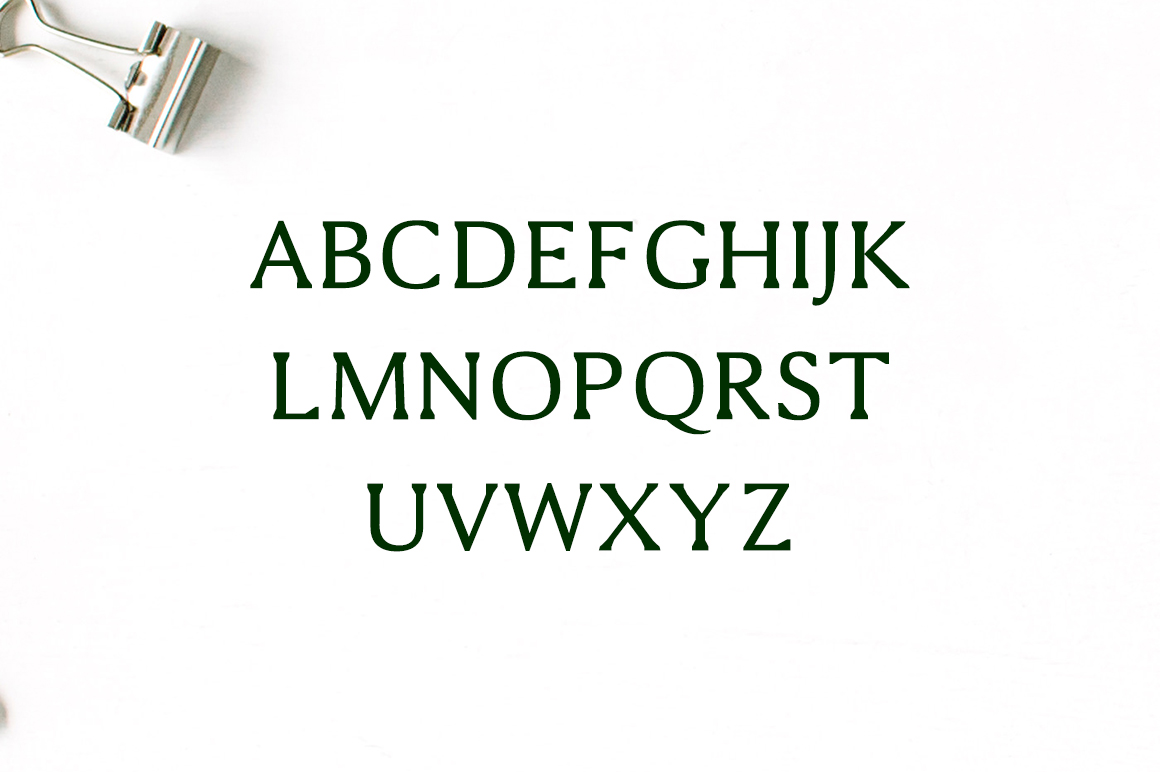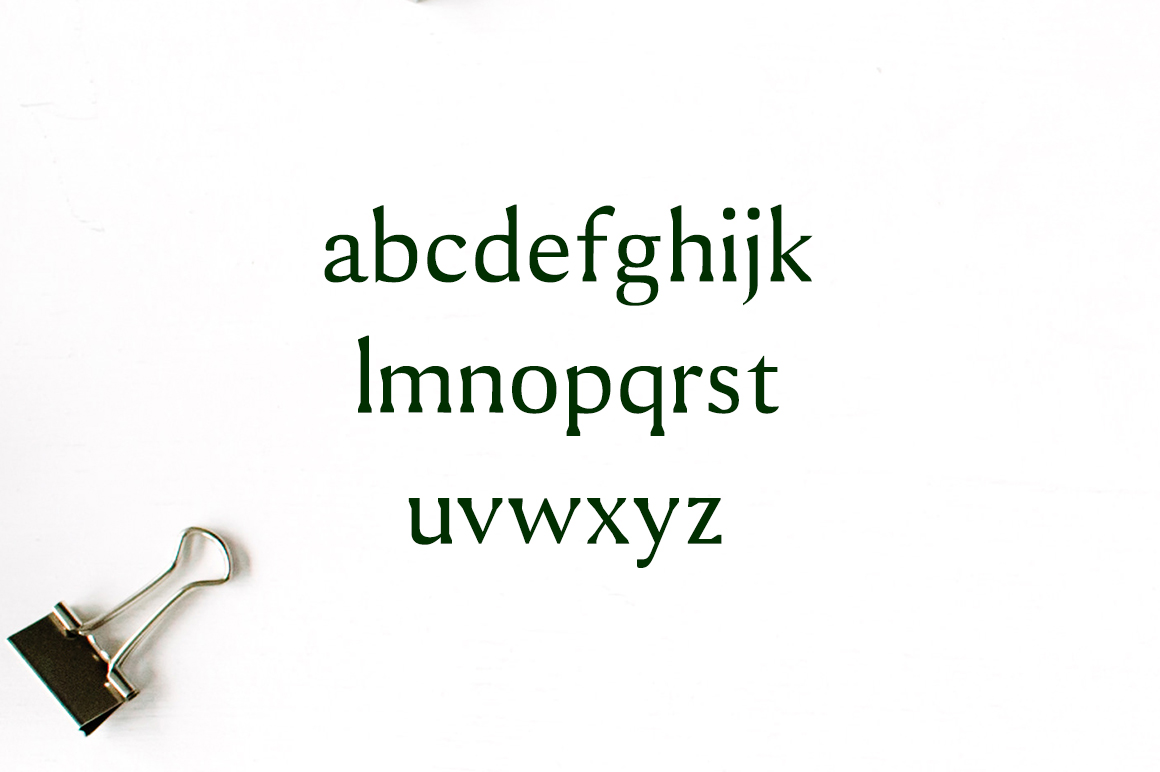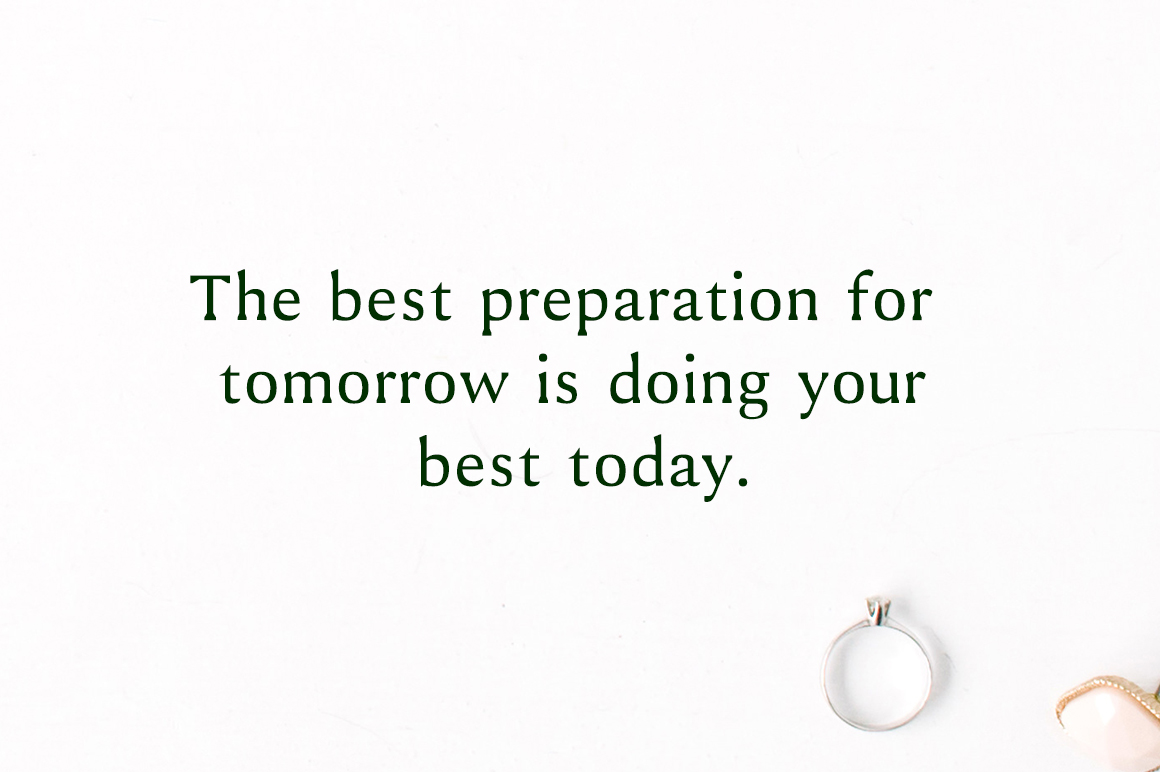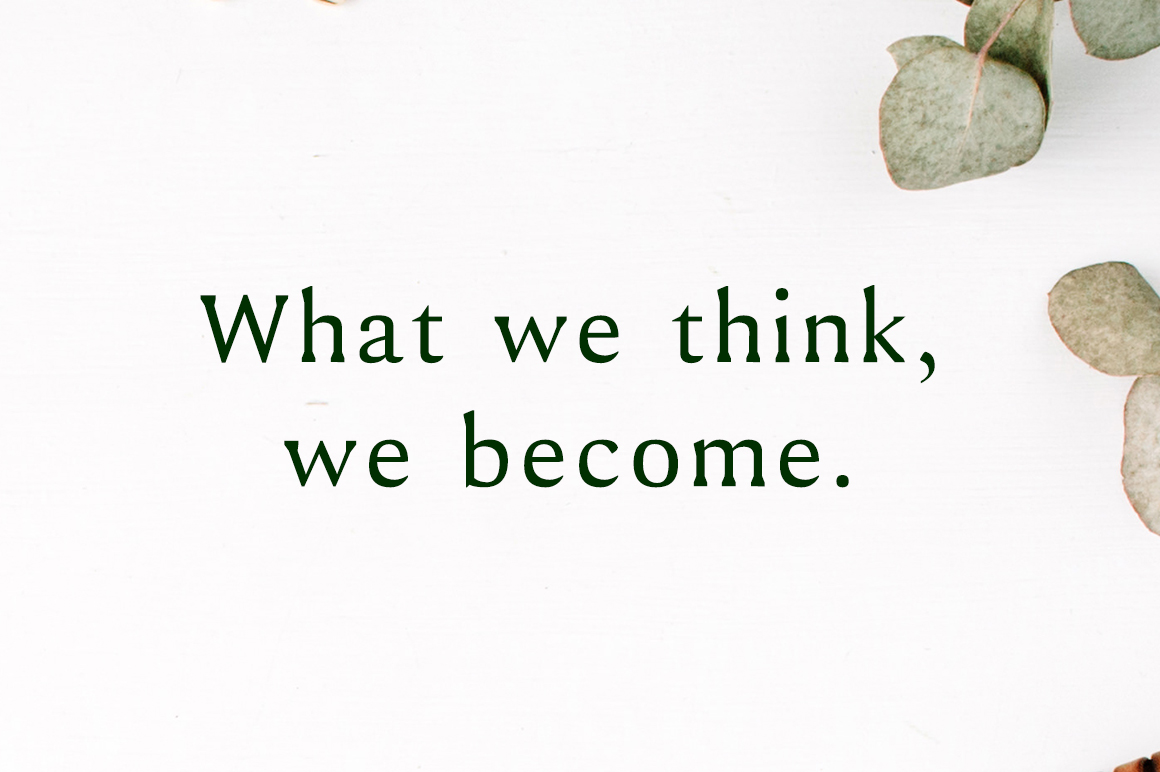
Introduction to Shaaron Font
As a designer, there’s nothing quite like the rush of bringing a creative project to life. The moment when all the elements come together, and your vision starts to take shape, is pure magic. But, let’s be honest, it’s the little things that often make all the difference – like the perfect font. For me, that font is Shaaron Font. Its clean lines, maximum legibility, and versatility make it the ultimate design resource for any project.
Whether you’re working on a high-quality magazine, a sleek website, or a bold advertisement, Shaaron Font is sure to impress. With its transparent background and wide range of weights, you can tailor it to suit your unique style and needs. And the best part? It’s available for free download, making it an invaluable addition to any designer’s toolkit.
Key Features of Shaaron Font
- Unique, hand-drawn design with a transparent background, perfect for creative projects.
- Comes in 6 different styles, including regular, bold, italic, and bold italic, making it a versatile design resource.
- Designed to be highly legible, with clear lines and subtle flair, making it perfect for body text or headlines.
Honest Review: Shaaron Font
As a designer, I’m always on the lookout for new and exciting design resources to enhance my creative projects. Recently, I stumbled upon the Shaaron Font, and I’m excited to share my honest review with you.
- ✨ High-quality design: The Shaaron Font has a beautiful, elegant design that’s perfect for a wide range of creative projects.
- ✨ Transparent background: The font has a transparent background, making it easy to customize and integrate with other design elements.
- ⚠️ Limited character set: The Shaaron Font only comes with a limited character set, which may not be ideal for designers who need a comprehensive font with a wide range of characters.
- ⚠️ Not suitable for large-scale projects: While the font is perfect for smaller projects, it may not be suitable for larger-scale projects that require a more extensive font library.
Overall, I’m impressed with the Shaaron Font, and I would definitely recommend it for designers who are looking for a high-quality, free design resource. Just be aware of its limitations, and use it wisely.
Tips for Getting the Most Out of Shaaron Font
Use Shaaron Font for high-quality creative projects that require a unique and elegant touch. You can also use it as a design resource for free download, making it a valuable asset for any project.
Shaaron Font is commonly used for creative projects such as branding, logos, and brochures. It’s also a popular choice for designers who want to add a touch of elegance and sophistication to their designs.